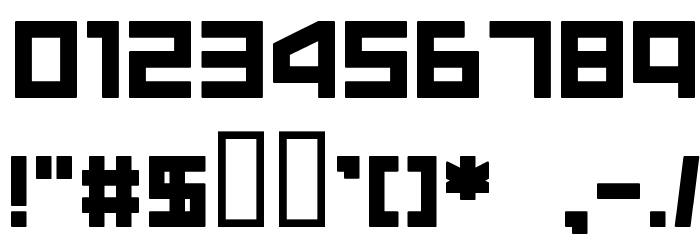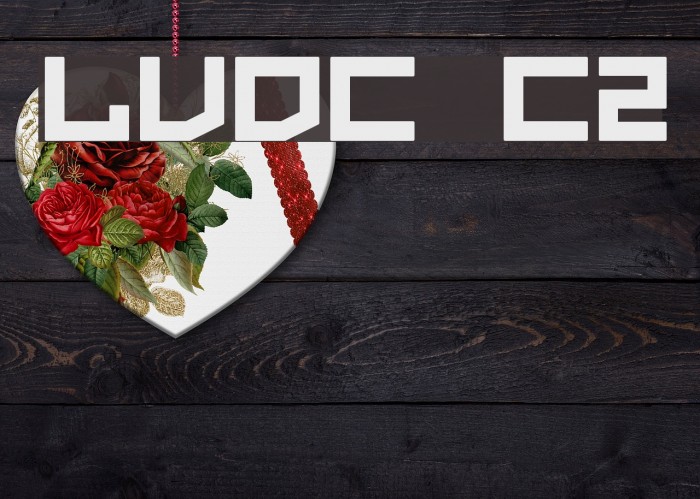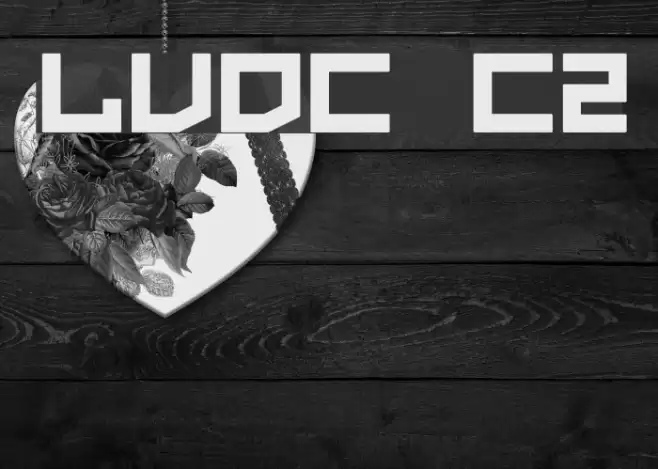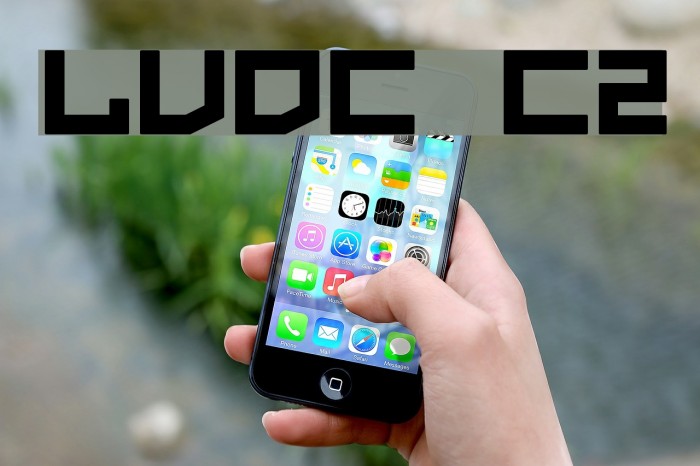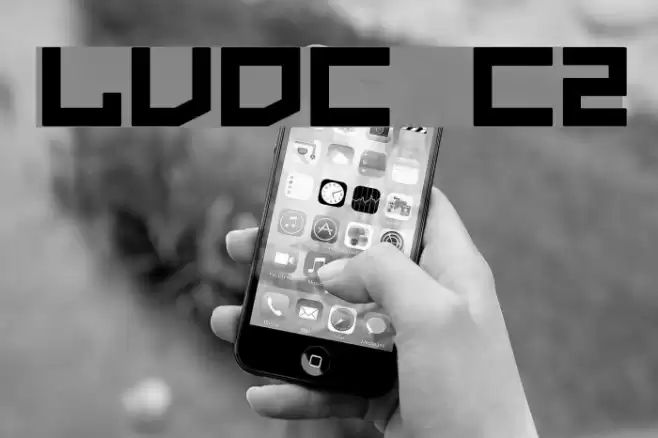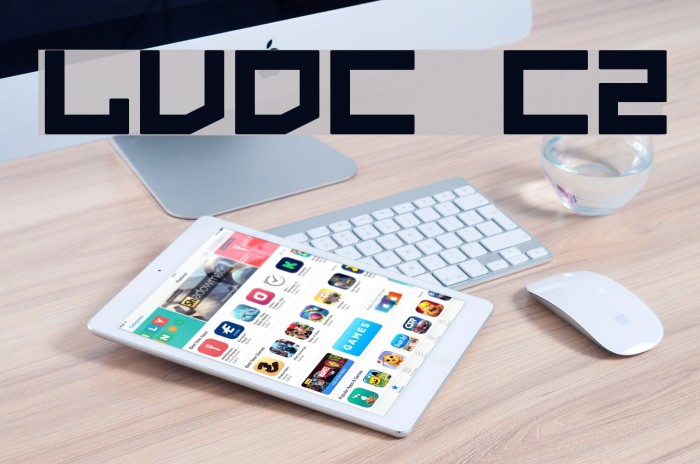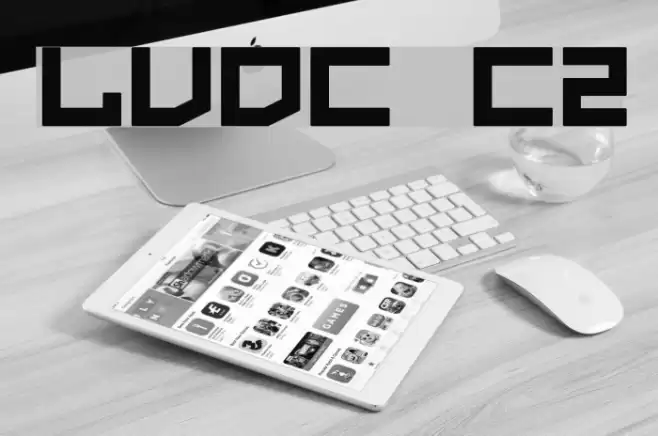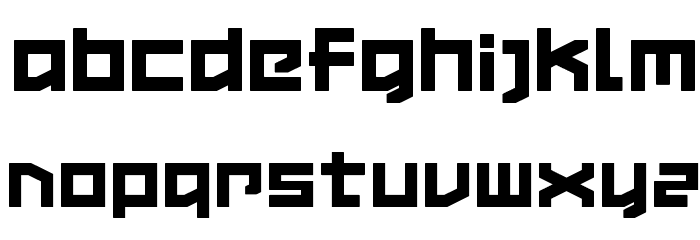
LVDC Common2 Font
LVDC Common2 Description
This font features a bold, geometric design with a distinctly modern and futuristic aesthetic. The characters are constructed with sharp angles and straight lines, giving them a blocky, digital appearance. The uppercase and lowercase letters maintain a consistent style, with the lowercase being slightly more compact. Numbers and special characters follow the same geometric theme, ensuring uniformity across all glyphs. The font's unique style makes it ideal for projects that require a strong, impactful visual presence.
| Proposed Projects | Ideal for technology branding, video game design, sci-fi themed posters, and digital interfaces. |